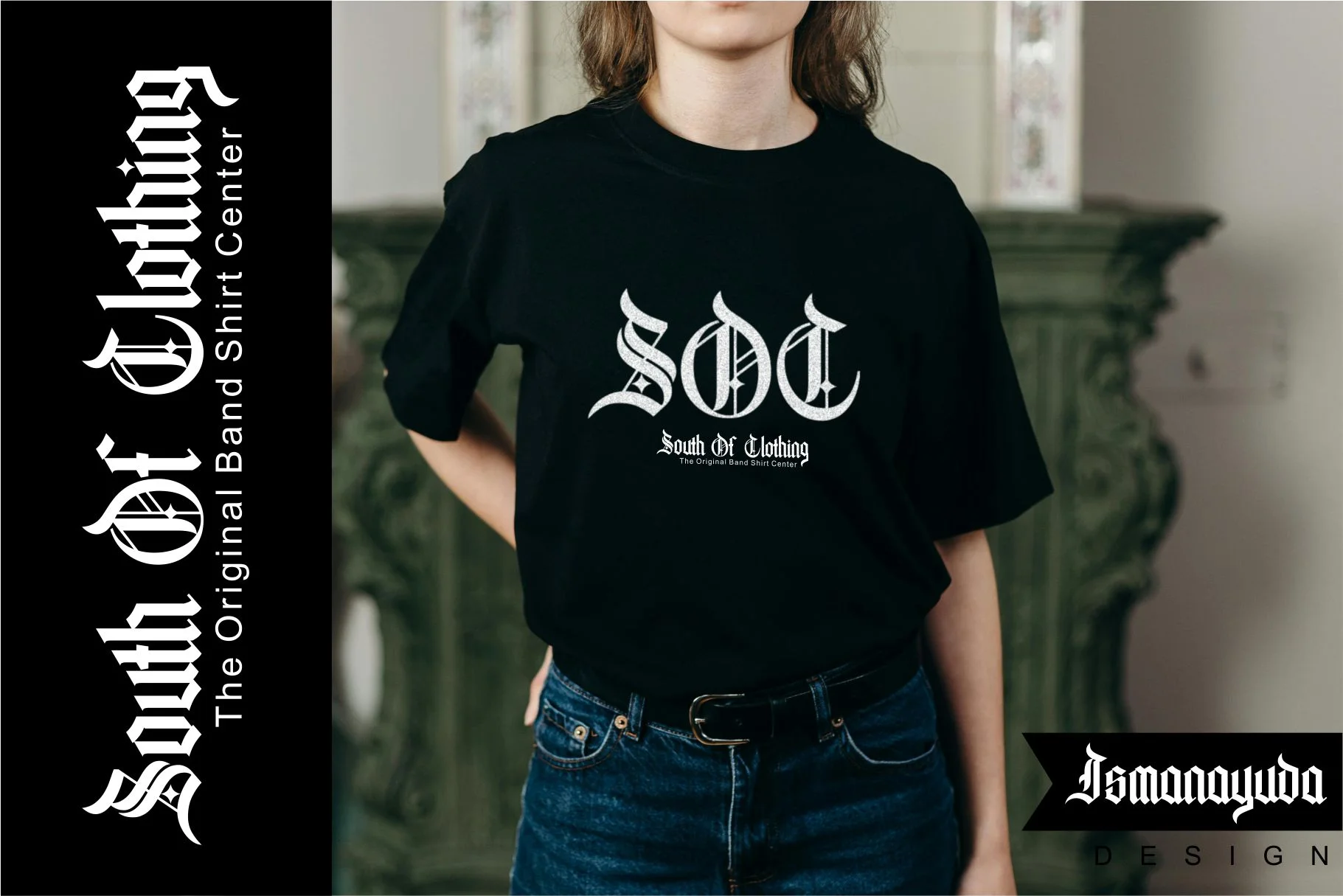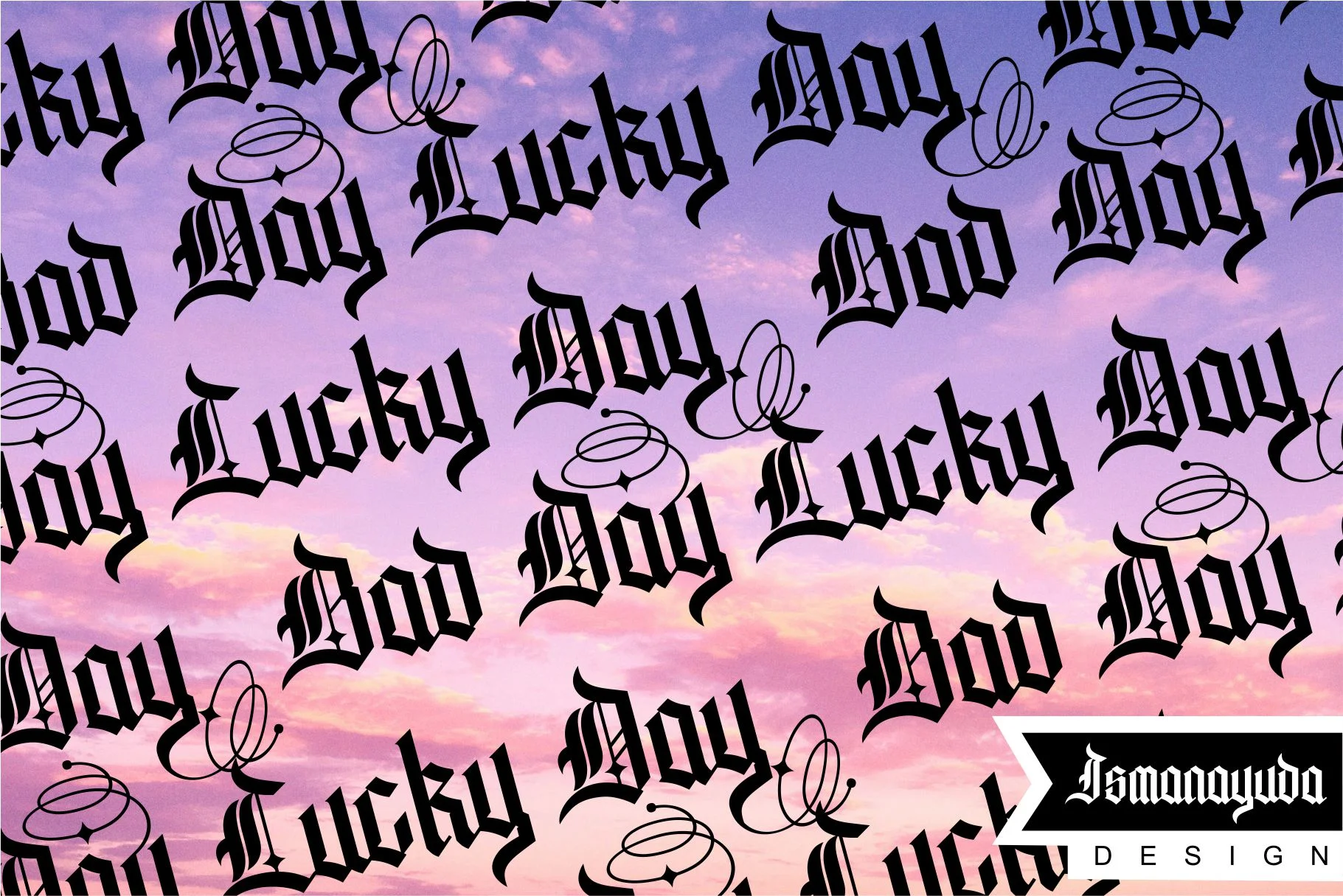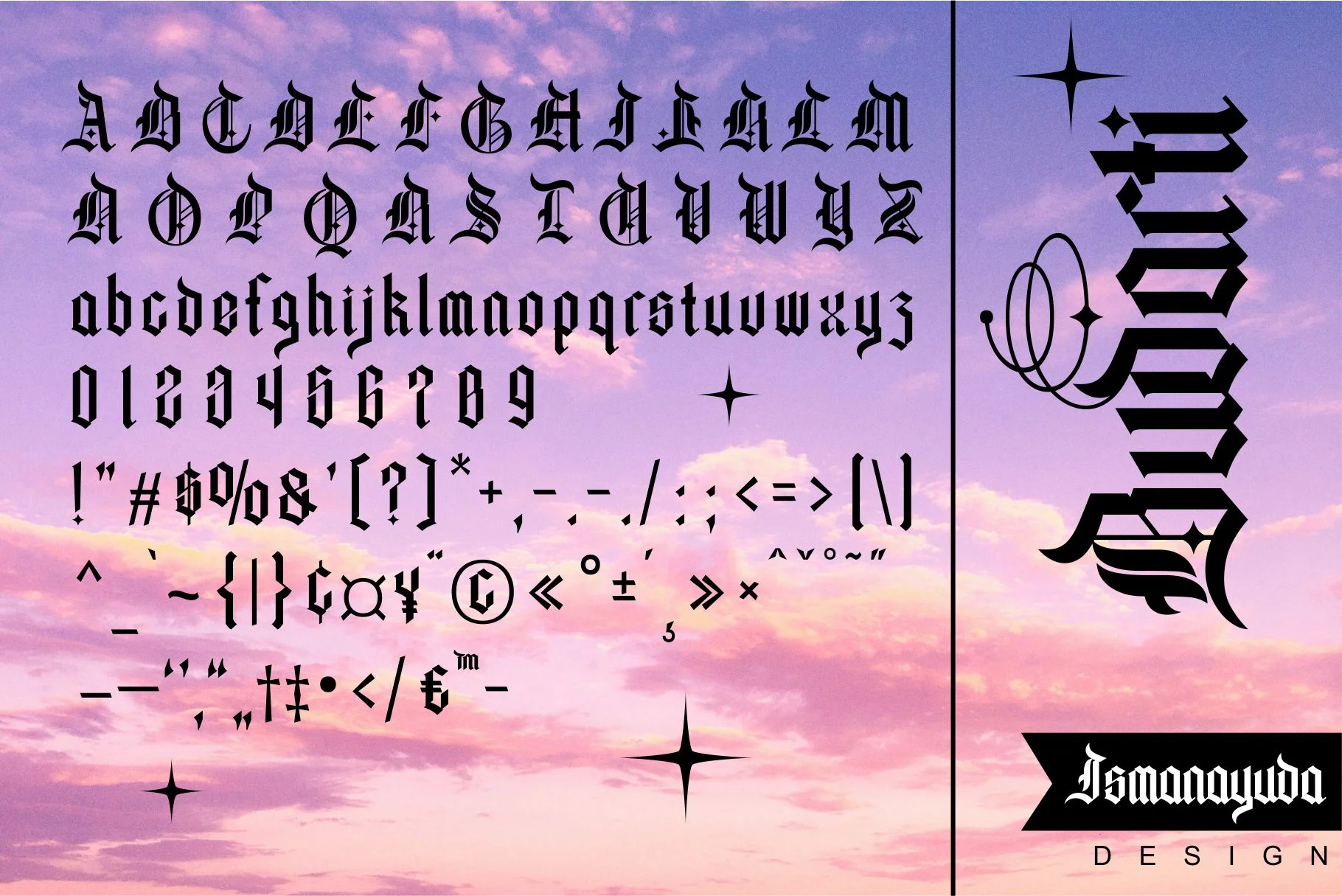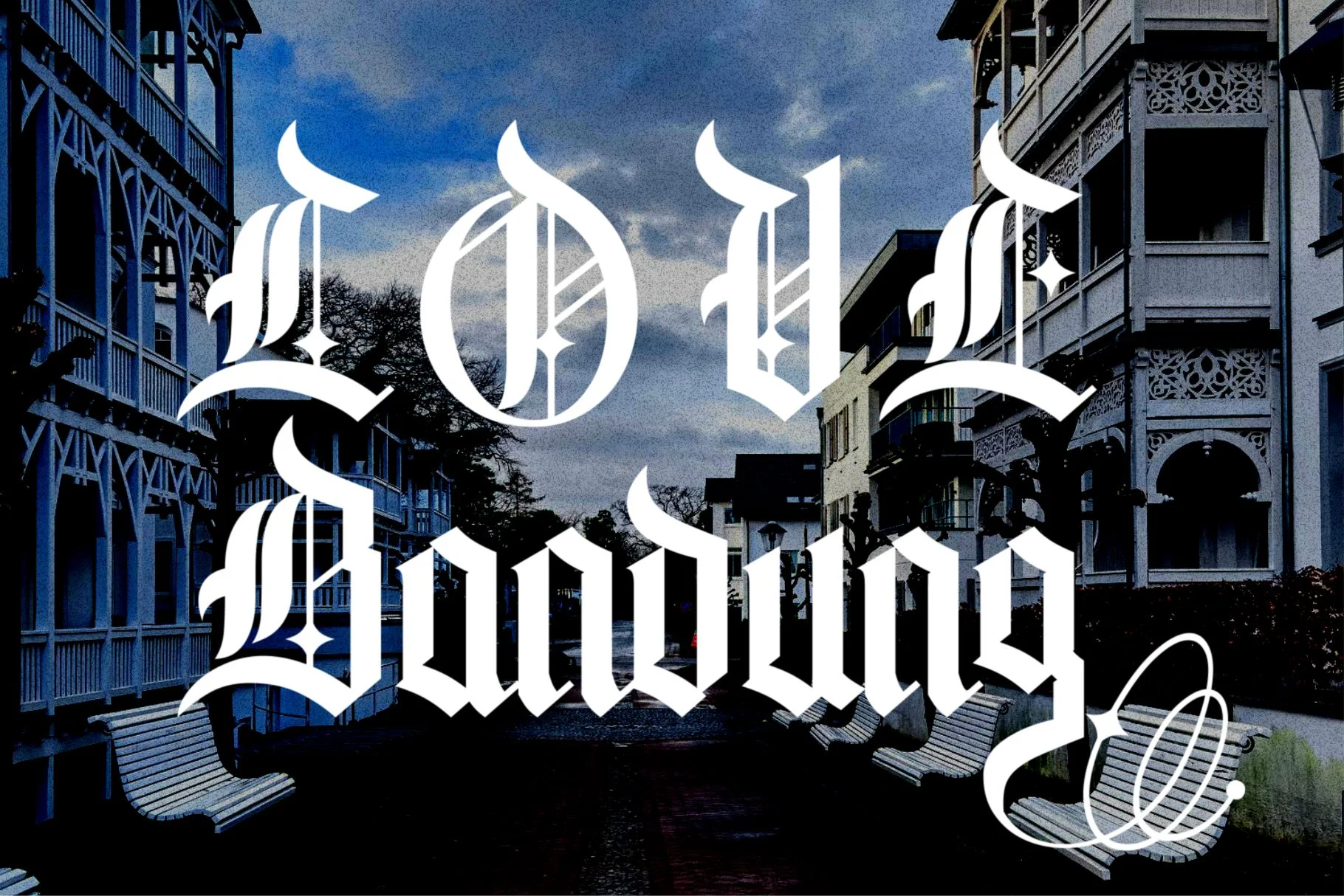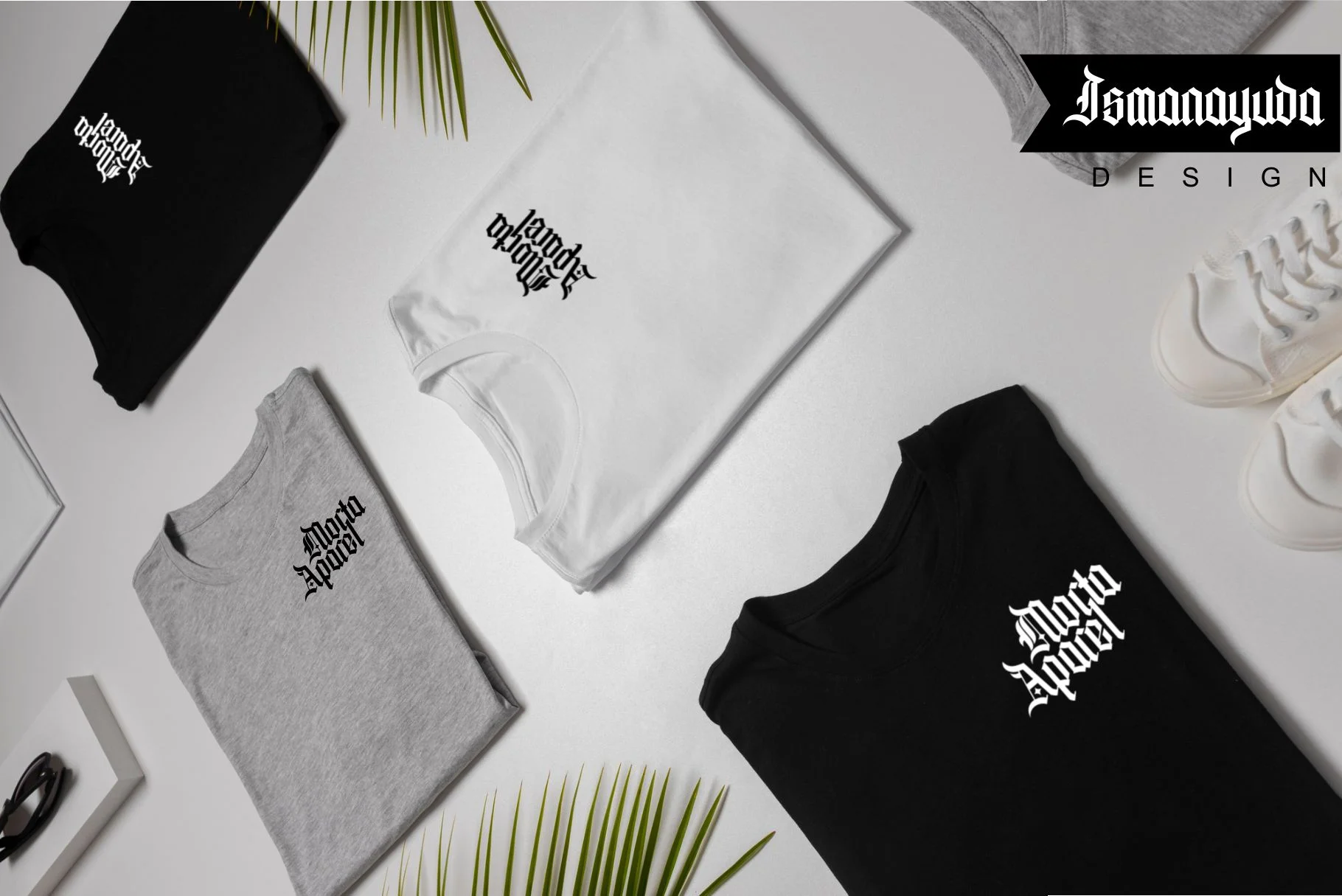
Budarti
Budarti is characterized by its bold, dramatic strokes and intricate, broken letterforms typical of the gothic style, but with a modern twist. Its visual identity features sharp, angular terminals and highly decorative elements, such as the swirling halo-like lines seen above the letter 'd' in the example. This blend of traditional medieval roots with quirky, modern stylistic flourishes makes it a standout
It is specifically designed for creative branding projects where a sense of power or heritage is needed, making it popular for band logos (especially in metal or hardcore genres), streetwear apparel, and artistic merchandise.